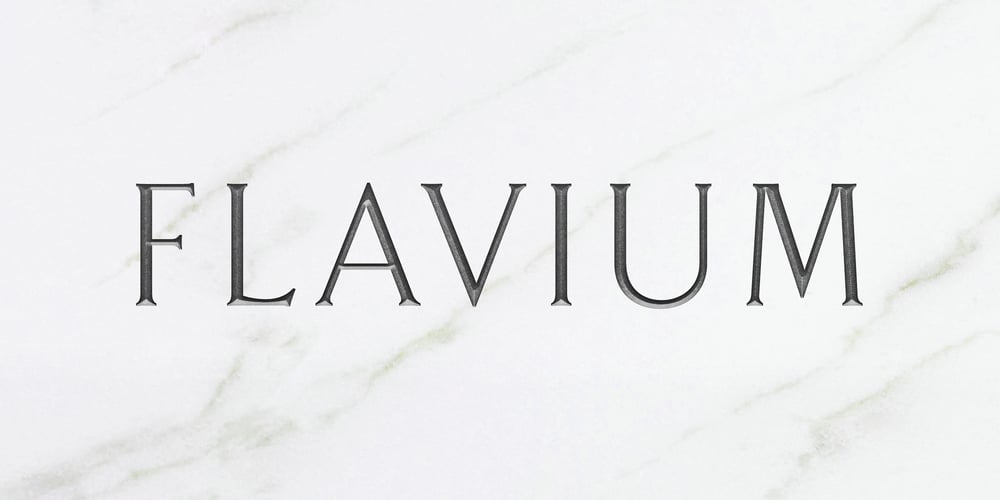
Flavium
Flavium font
Flavium Font Family was designed by Leonardo Di Lena and published by Flanker. Flavium contains 3 styles and family package options. Flavium is the reconstruction of the typographic character used in the engravings of the marble street name sign of Rome from about 1970 until the end of the eighties. It is an uniquely uppercase Roman font whose letters are confined within the space between the baseline and the caps line.Its style is severe but elegant, very useful for expressing authority and officialdom with simplicity.